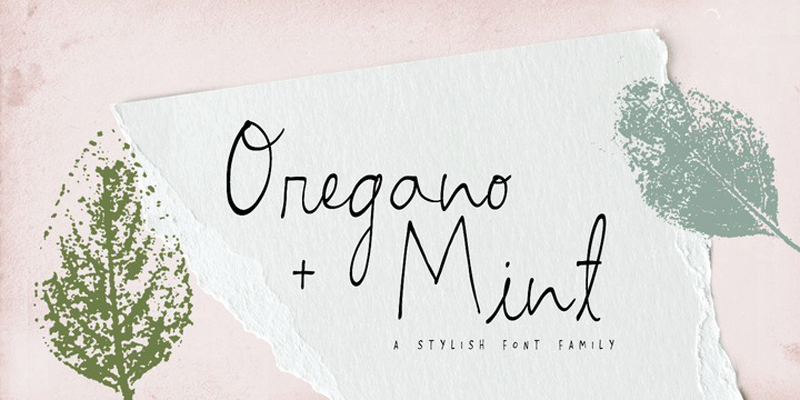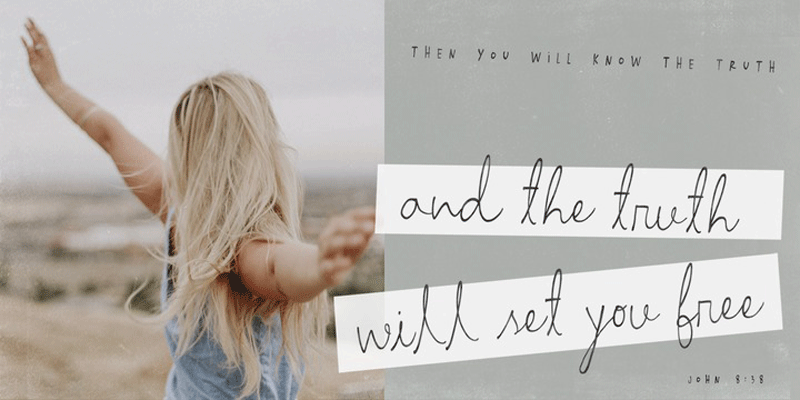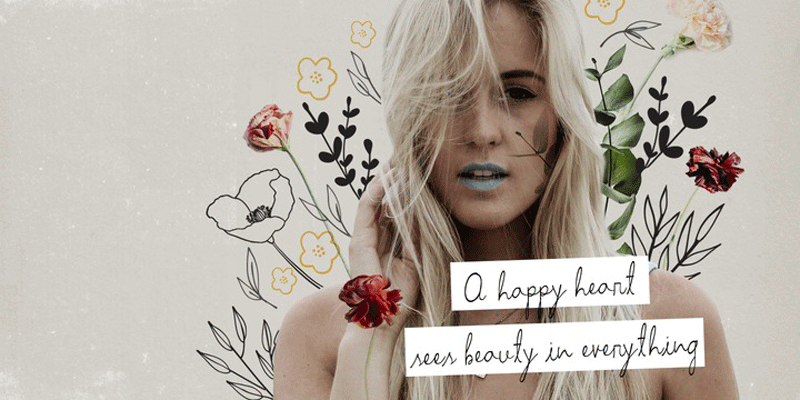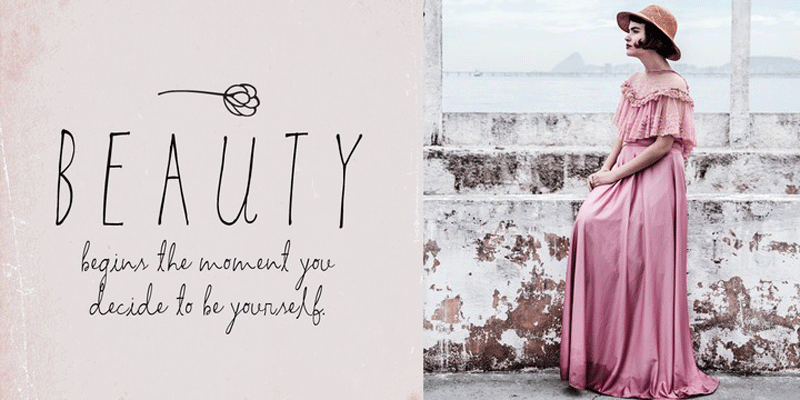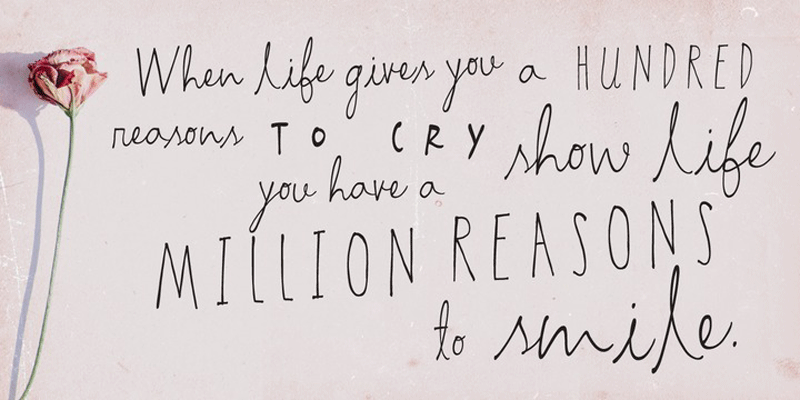
Oregano And Mint Font Family
Oregano & Mint is a beautiful font family that conveys a cute handwriting style. Unique and loaded with lots of illustrations and logos are a great design pack to start creating the most pretty designs. Create recipes, quotes, business cards, wedding invitations, greeting cards, or any design project that requires a sweet handwriting look. All 3 fonts are designed to work perfectly together. Also checkout Restu Bundah – Retro Script Font.
• Oregano and Mint Regular: the script font
• Oregano and Mint Skinny: perfect to combine with the script or as is
• Oregano and Mint Small: looks great in logos, as a tagline or for product descriptions